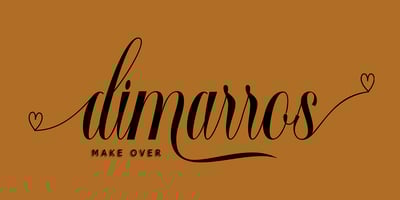
Hirradista Font Family was designed by Muhammad Taufik and published by Rastype Studio. Hirradista contains 1 styles and family package options. Hirradista Script is modern calligraphy font. This font is casual and pretty with swashes. Can used for various purposes. such as logo, product packaging, wedding invitations, branding, headlines, signage, labels, signature, book covers, posters, quotes and more. Hirradista Script features OpenType stylistic alternates, ligatures and International support for most Western Languages is included. To enable the OpenType Stylistic alternates, you need a program that supports OpenType features such as Adobe Illustrator CS, Adobe Indesign & CorelDraw X6-X7, Microsoft Word 2010 or later versions. How to access all alternative characters using Adobe Illustrator: https://www.youtube.com/watch?v=XzwjMkbB-wQ Hirradista Script is coded with PUA Unicode, which allows full access to all the extra characters without having special designing software. Mac users can use Font Book , and Windows users can use Character Map to view and copy any of the extra characters to paste into your favourite text editor/app.How to access all alternative characters, using Windows Character Map with Photoshop: https://www.youtube.com/watch?v=Go9vacoYmBw If you need help or have any questions, please let me know. I’m happy to help 🙂 Thanks & Happy Designing!